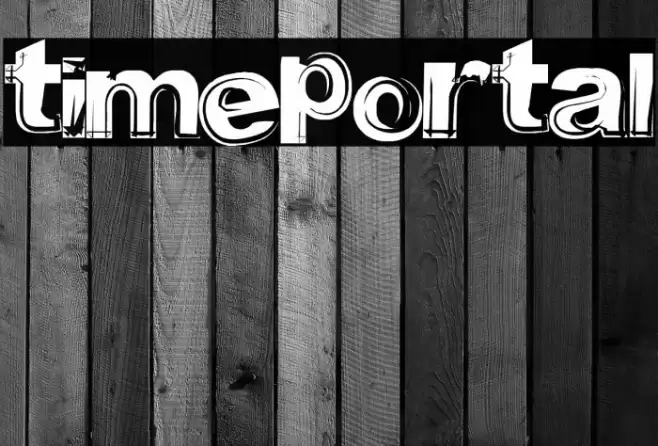
timeportal Font
timeportal Description
This font features a bold and dynamic style with a playful, distorted appearance. The characters are outlined with a thick, black stroke, giving them a shadowed effect that adds depth and dimension. The letters have an irregular, slightly warped form, contributing to a sense of movement and energy. This unique design makes it stand out, capturing attention with its bold presence. The font includes a full set of uppercase and lowercase letters, numbers, and a variety of special characters, making it versatile for various design needs.
A bold, dynamic font with a playful, distorted style and shadowed effect from Distorted Eroded fonts.
- Proposed Projects: Ideal for projects that require a fun and eye-catching design, such as posters, event flyers, children's book covers, or any creative branding materials.